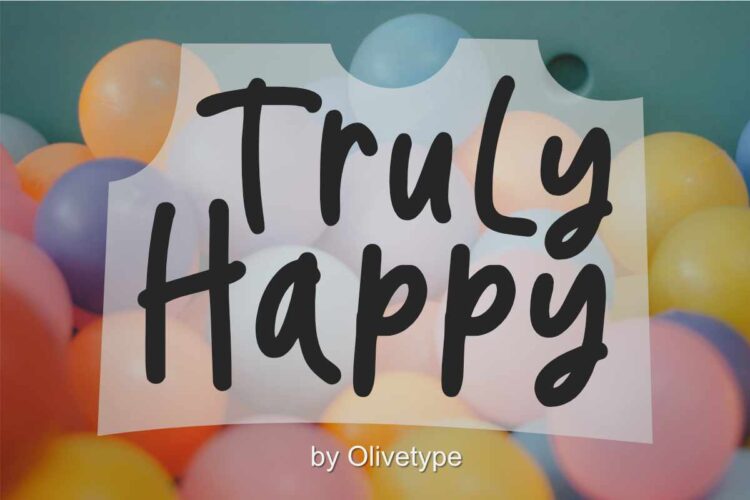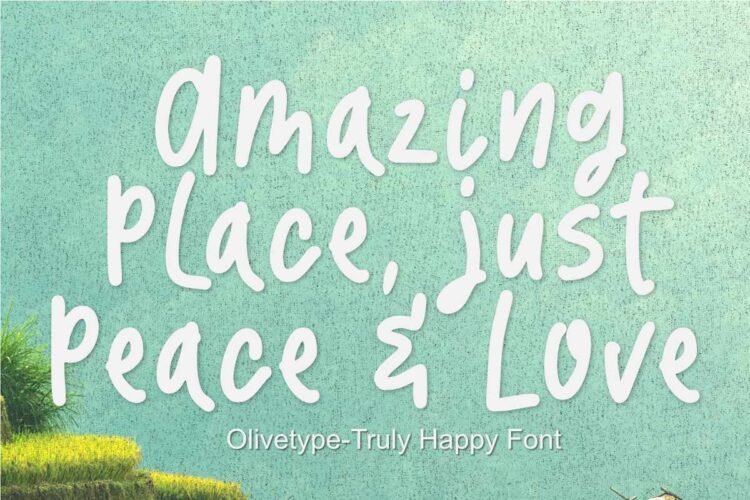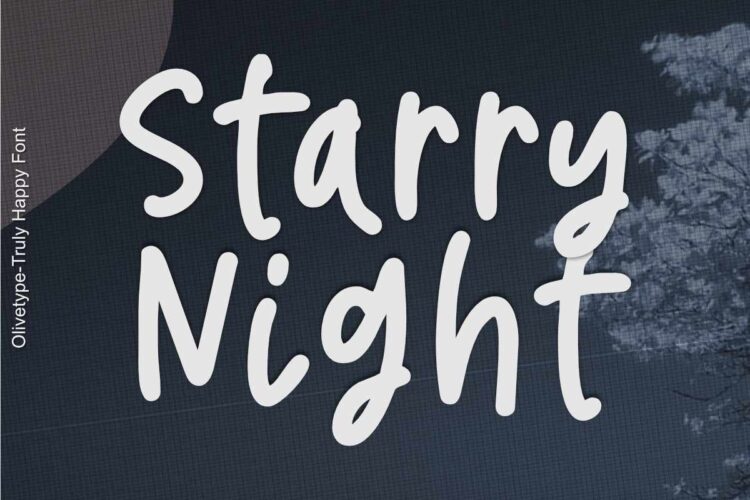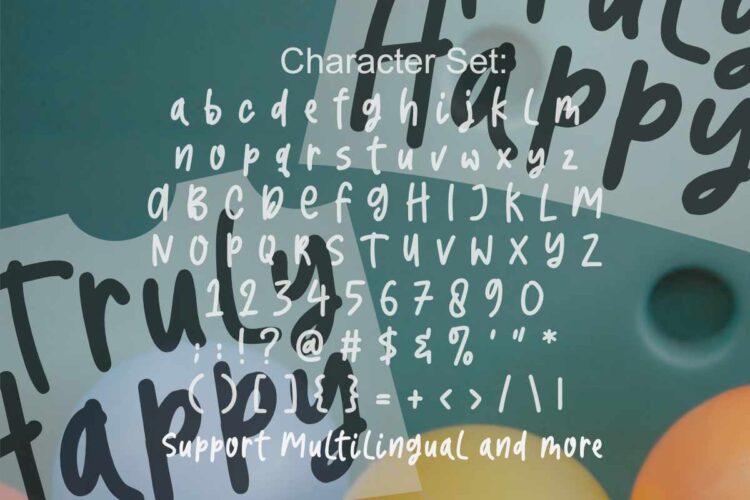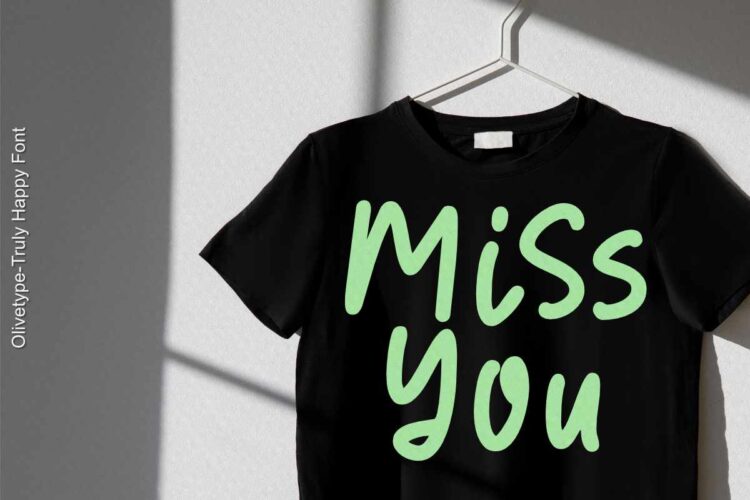
Truly Happy is an ideal font choice for anyone looking to add a bit of fun and playfulness to their projects. This handwritten font has a light and airy feel, making it ideal for any creative project. With its cute and whimsical details, Truly Happy will surely bring a smile to everyone who sees it.